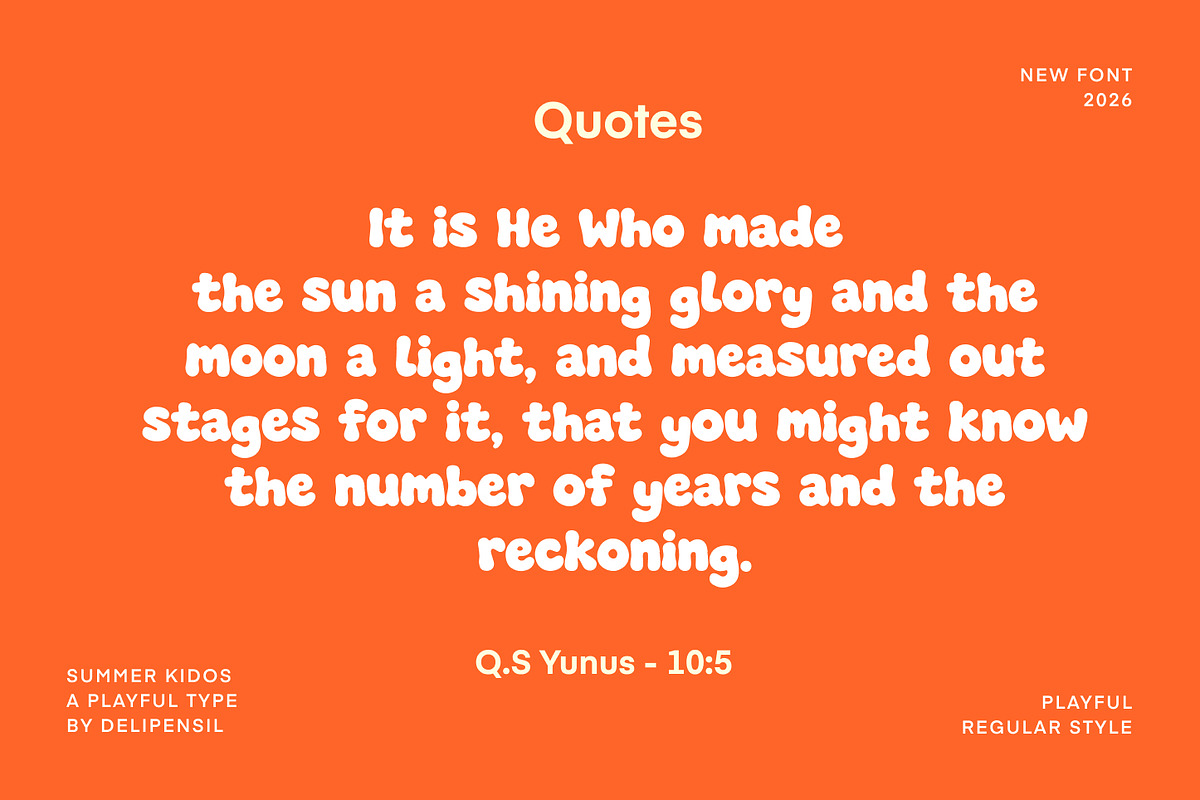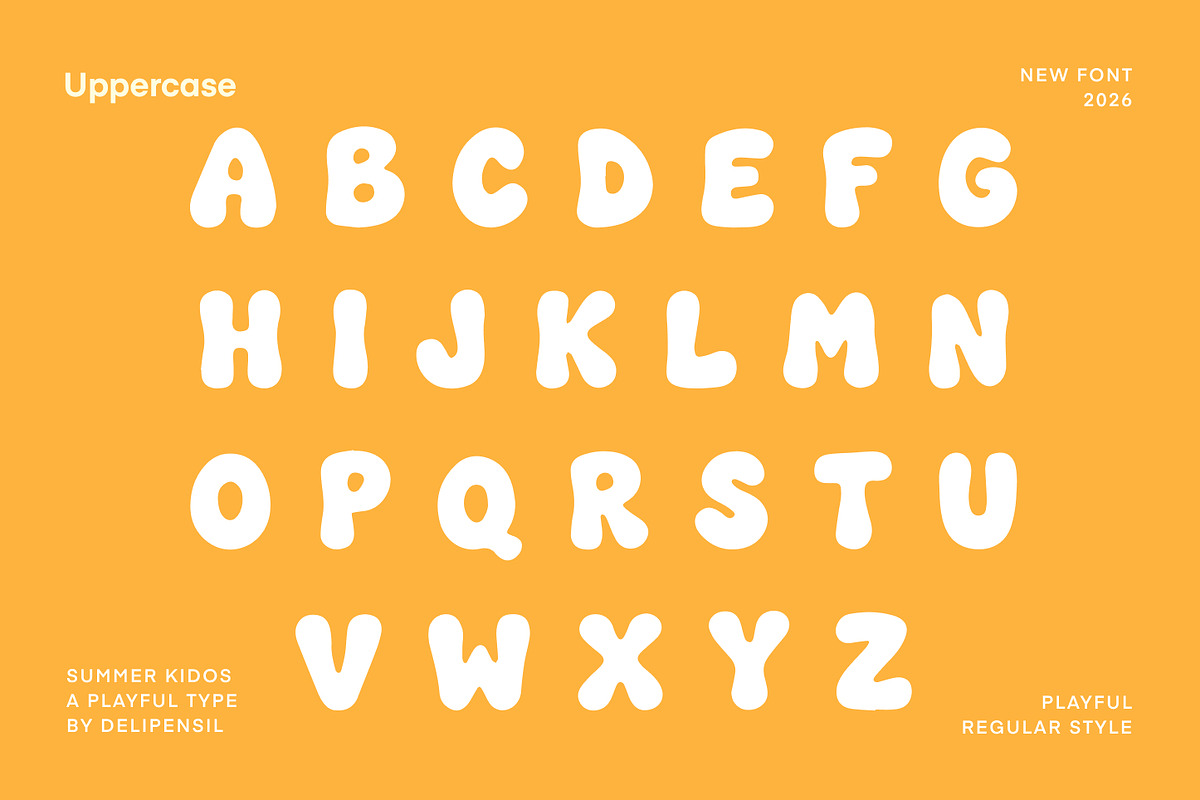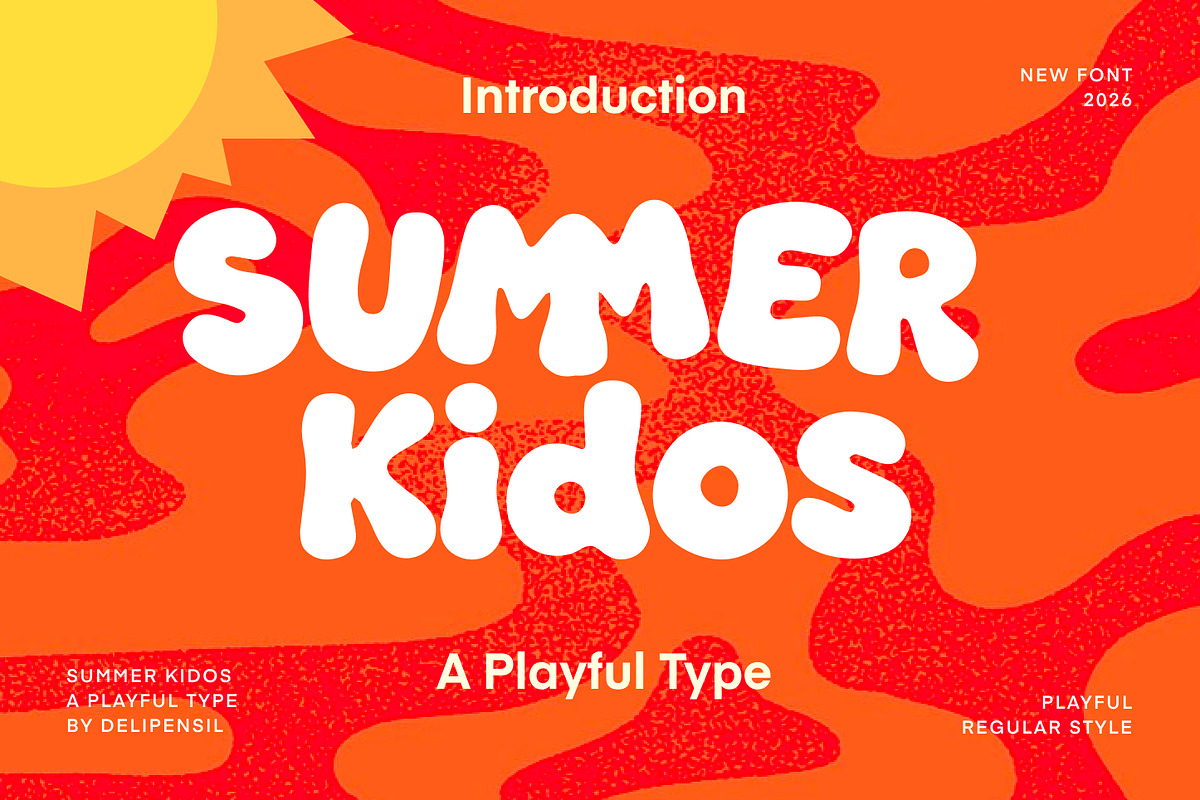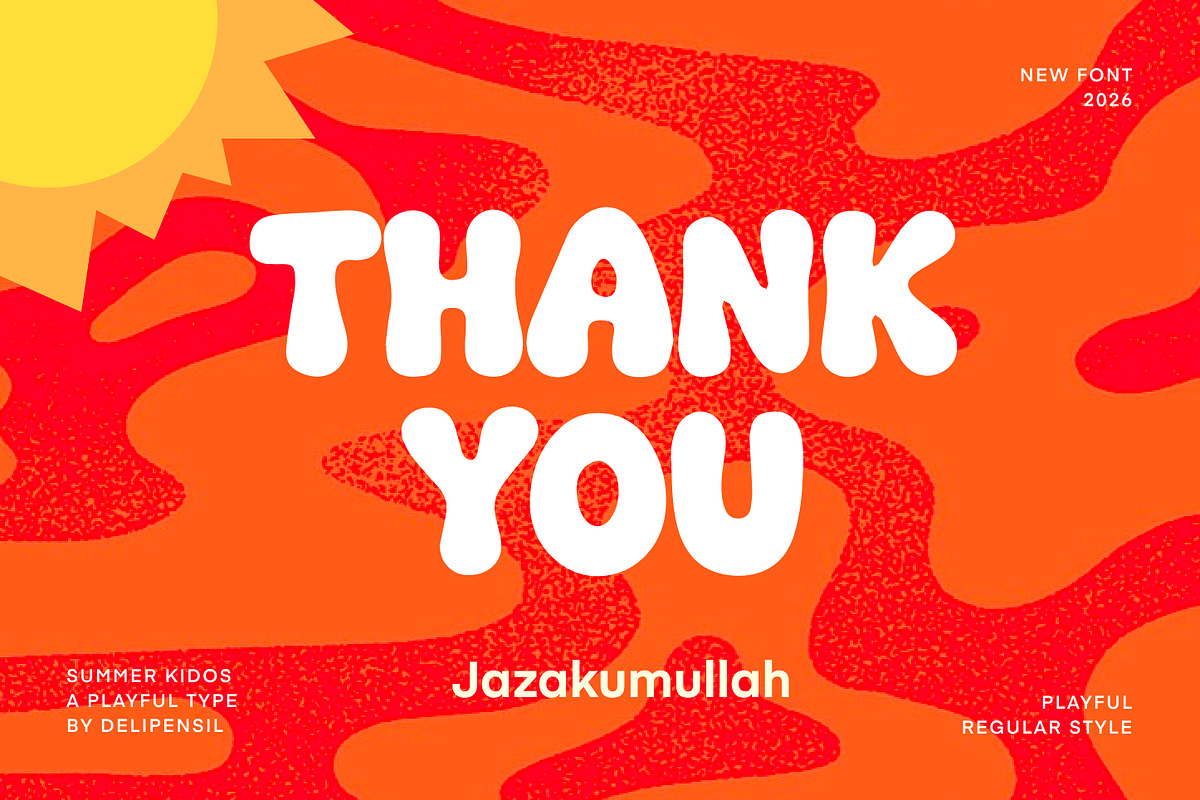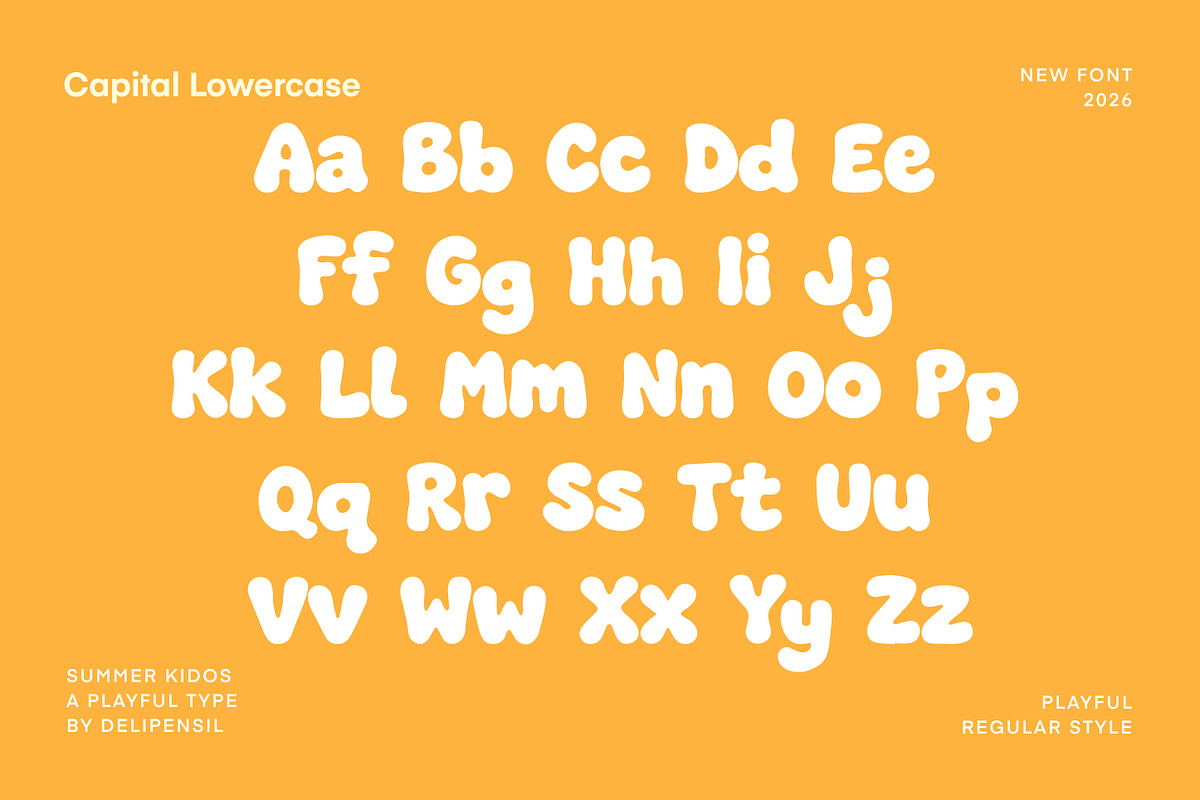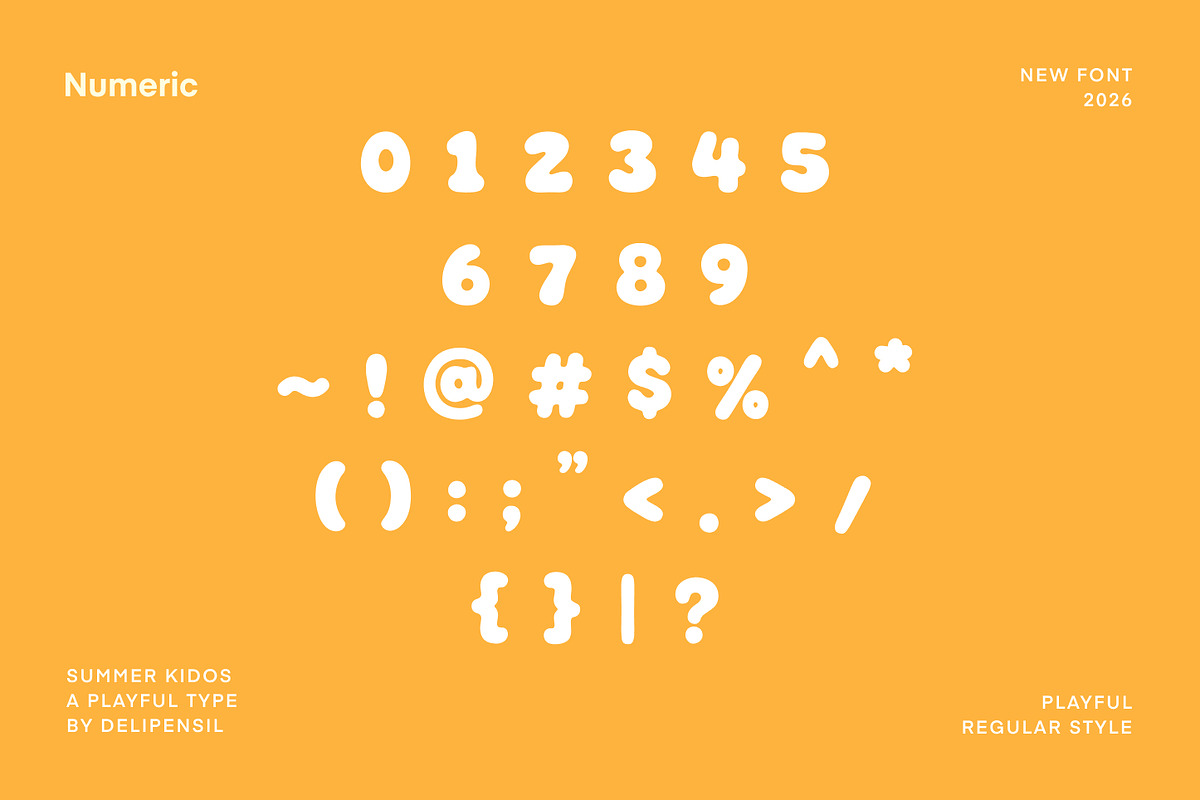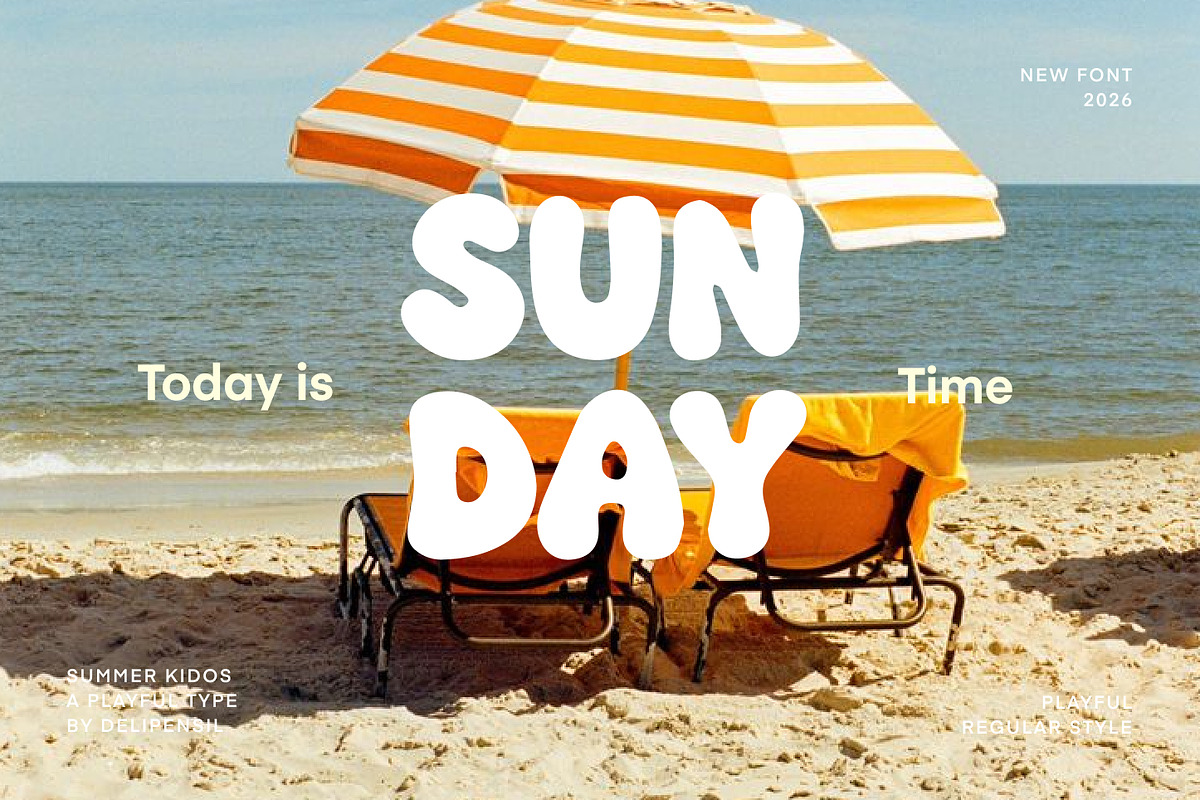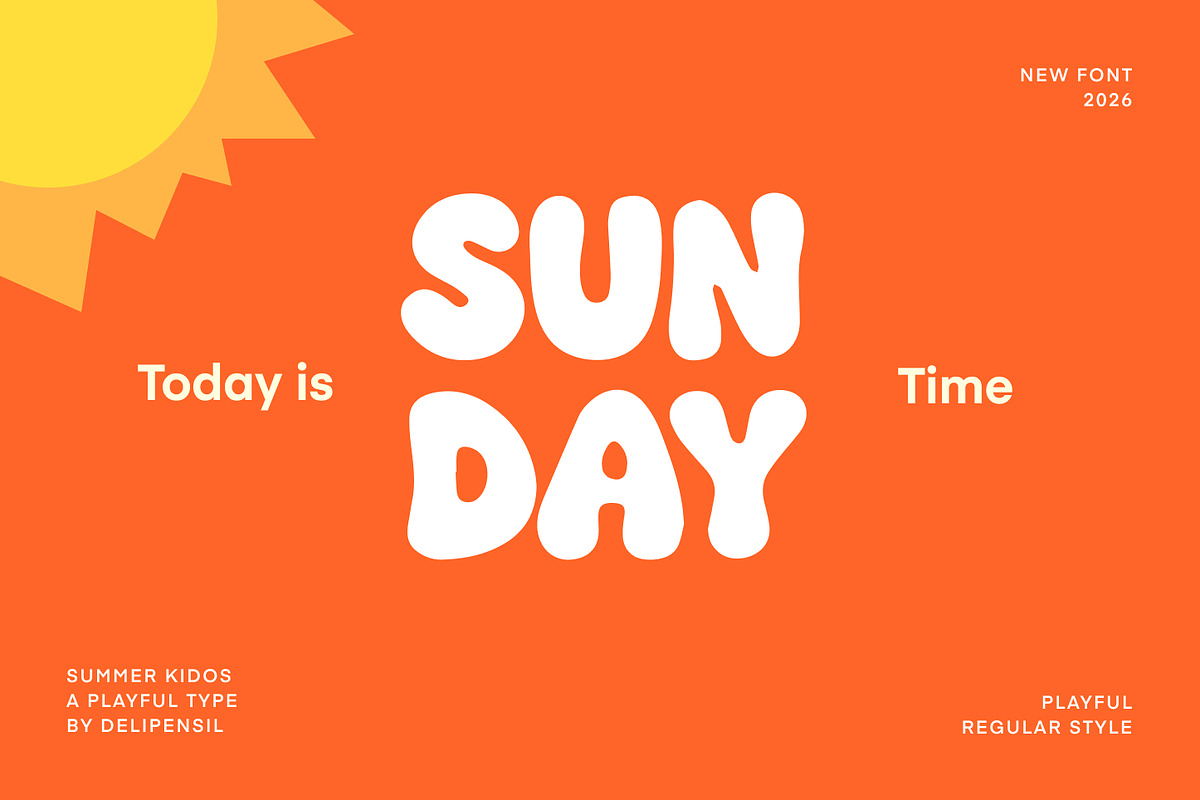
SummerKidos - A Playful Kids Display
Bismillah Introduction SummerKidos – A Playful Kids Display Font
Bring joy, creativity, and a touch of fun to your designs with SummerKidos, a cheerful display font made for children's projects, playful branding, educational materials, party invitations, product packaging, and more.
With its friendly letterforms and energetic personality, SummerKids is perfect for creating eye-catching designs that feel fun, warm, and full of imagination.
* Kids Branding
* Children's Books
* School Projects
* Party Invitations
* Product Packaging
* Posters & Flyers
* Social Media Graphics
* Craft & DIY Projects
* Cute Merchandise
* Uppercase & Lowercase
* Numbers & Punctuation
* Outline style
Add a playful and sunny vibe to your next creative project with SummerKidos! ☀️🎈